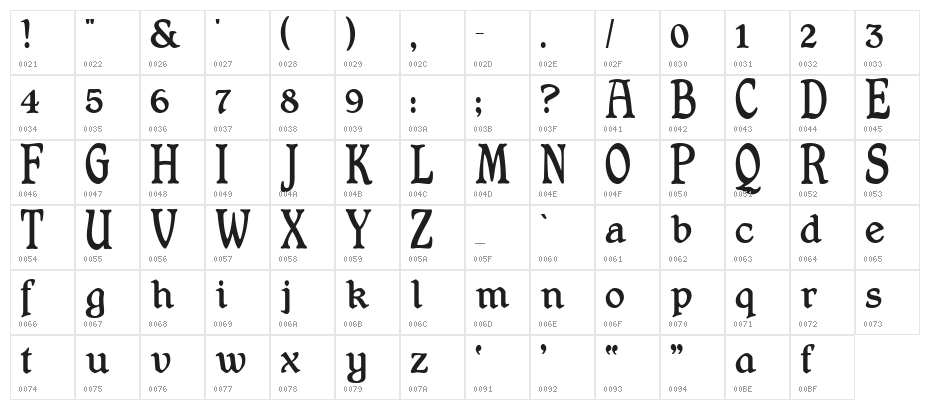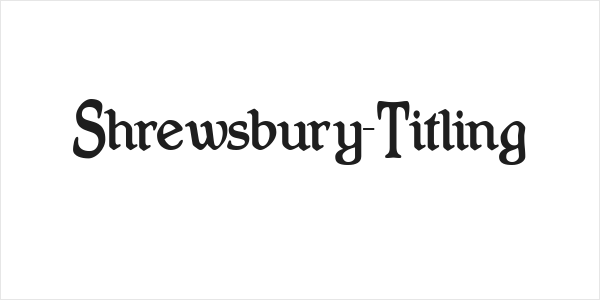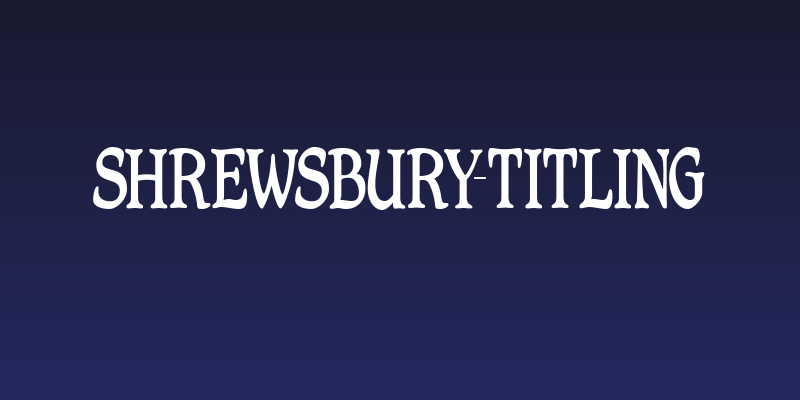
Shrewsbury-Titling Font
Shrewsbury-Titling Description
This font features a classic serif design with elegant and refined strokes, perfect for creating a sophisticated and timeless look. The uppercase letters are bold and commanding, while the lowercase letters maintain a balanced and harmonious appearance. The numerals are clear and distinct, ensuring readability. Special characters are designed with the same attention to detail, providing a cohesive and polished overall appearance. This font is ideal for projects that require a touch of elegance and tradition, such as formal invitations, book covers, or branding materials.
| Use Case | Headlines, Logos, Formal documents |
| Proposed Projects | Ideal for formal invitations, book covers, branding materials, and any project requiring a sophisticated touch. |